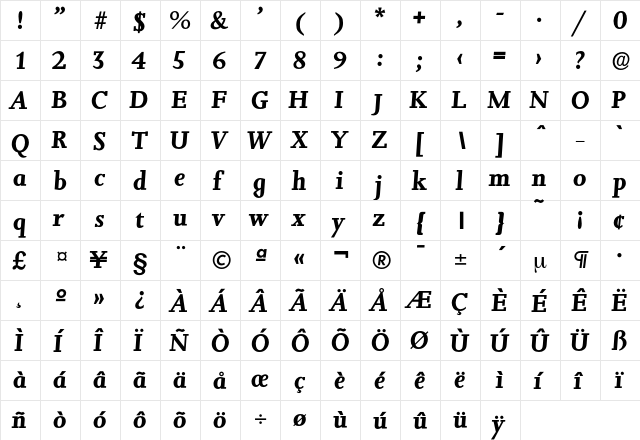
Jessica-BoldIta Regular
Design Context for Jessica-BoldIta Typeface
Jessica-BoldIta is a composed and adaptable typeface that performs quietly and consistently across a wide range of design contexts. Its bold stroke weight gives it real presence on the page.